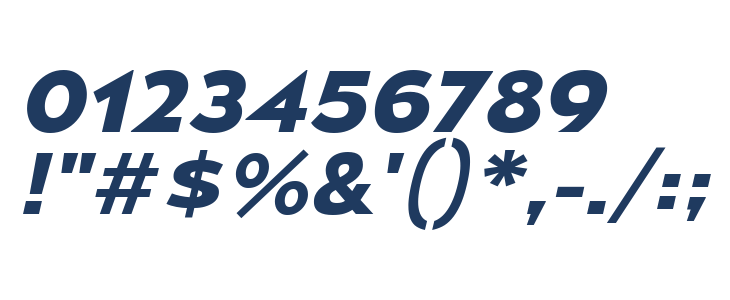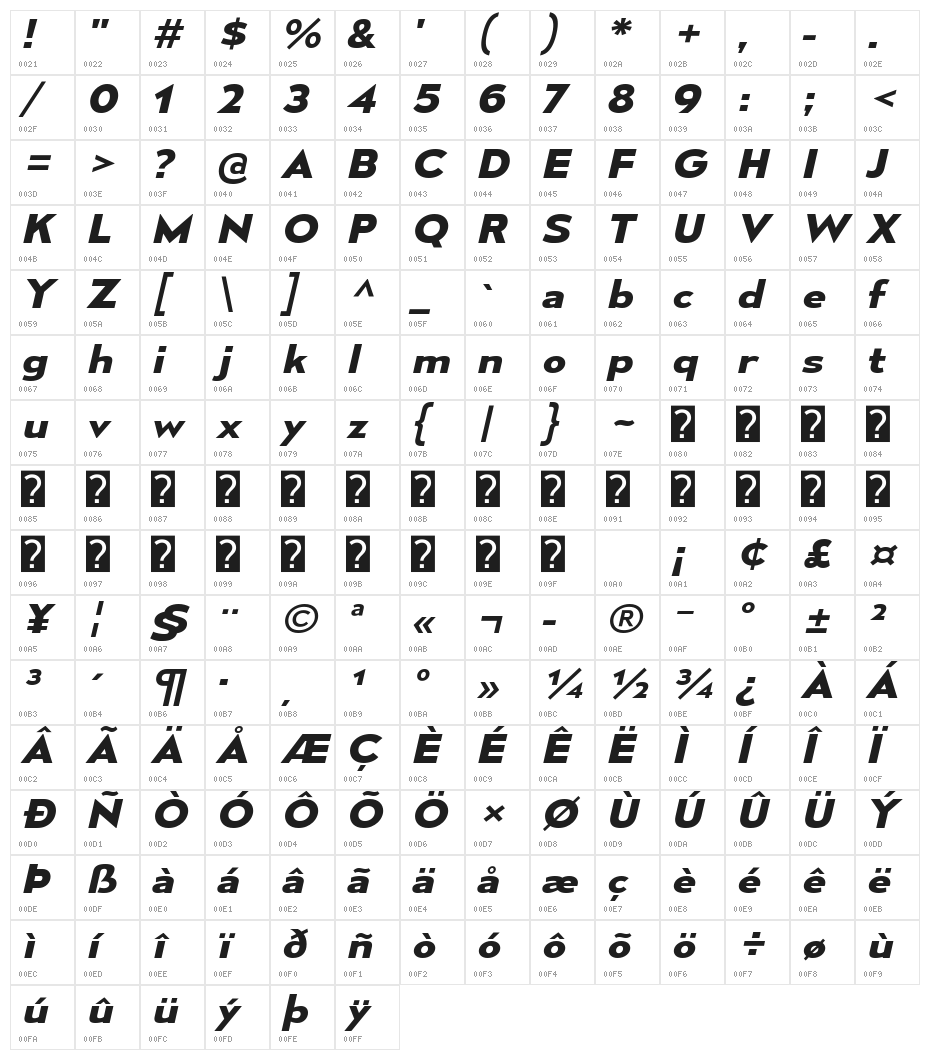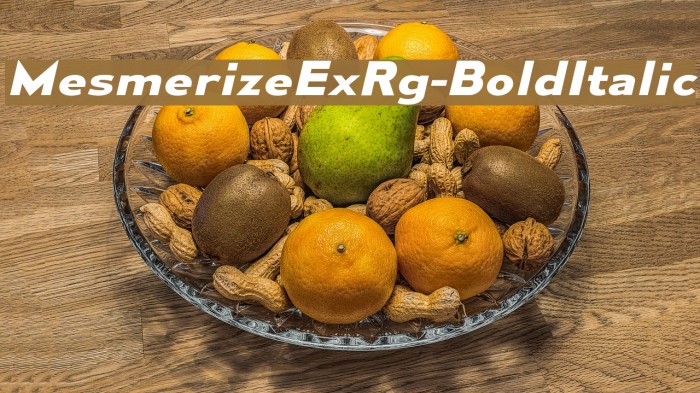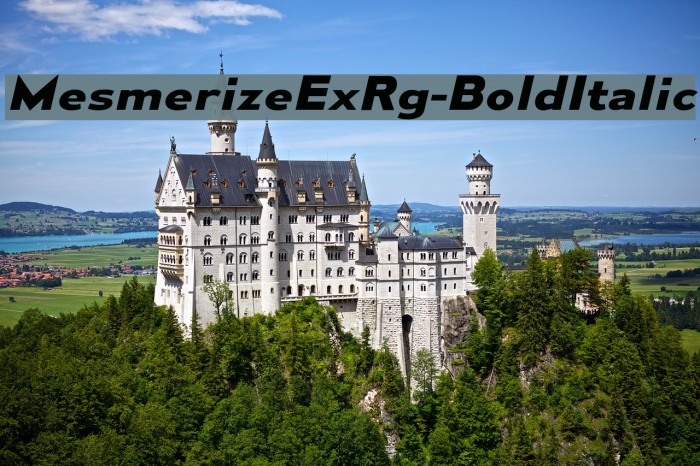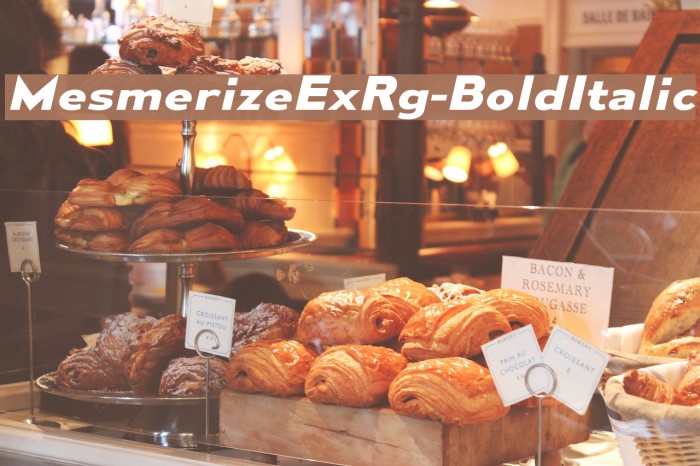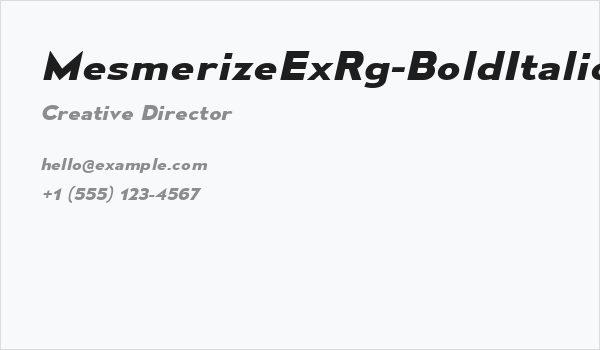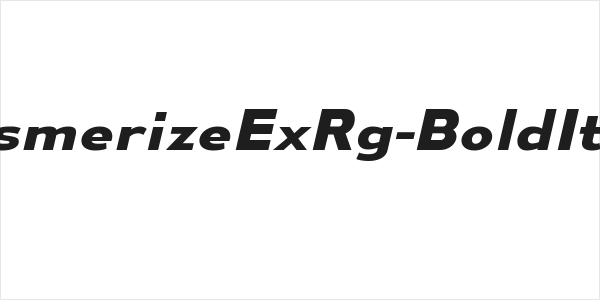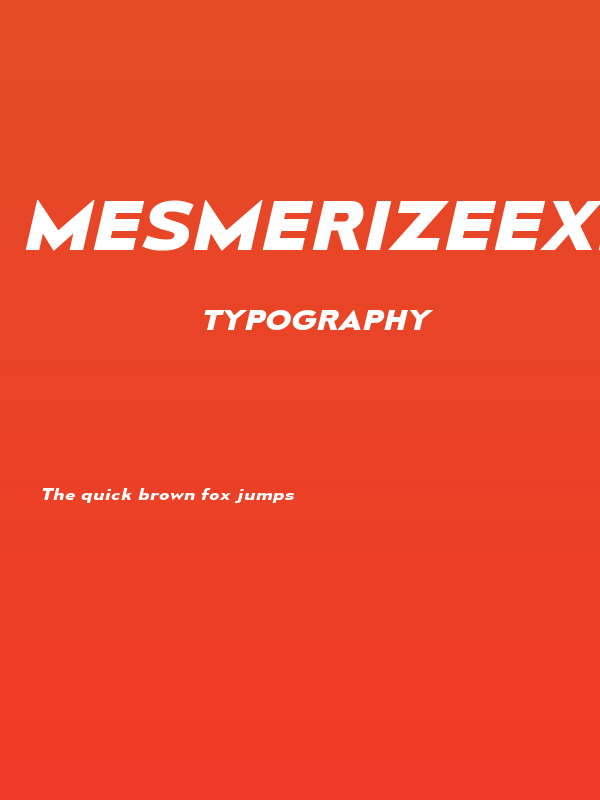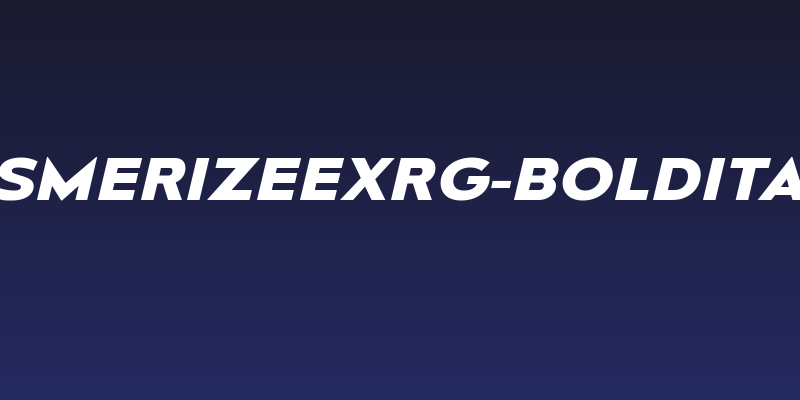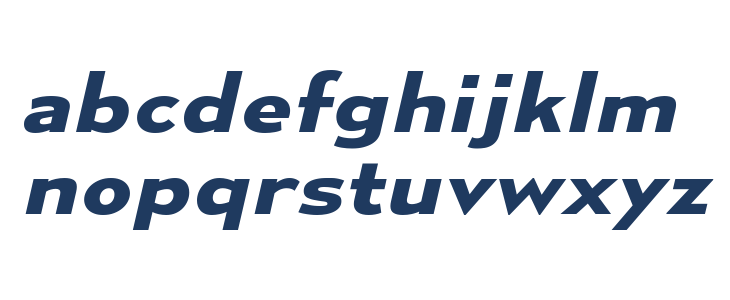
MesmerizeExRg-BoldItalic Font
MesmerizeExRg-BoldItalic Description
This font exhibits a bold and italicized style, characterized by its strong, dynamic presence. The letters are slightly slanted, adding a sense of motion and urgency. The strokes are thick and consistent, providing a robust and confident appearance. The font maintains a modern aesthetic with clean lines and a sleek design, making it suitable for contemporary applications. The characters are well-spaced, ensuring readability even at smaller sizes. Its bold nature makes it ideal for making statements and capturing attention.
| Use Case | Headlines, Logos, Advertising |
| Proposed Projects | Ideal for branding, advertising, headlines, and any project requiring a strong visual impact. |